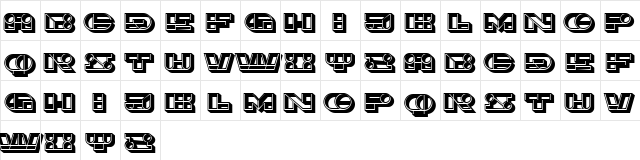
Imbecile 3D Regular
Design Context for Imbecile 3D Typeface
Imbecile 3D is a composed and adaptable typeface that performs quietly and consistently across a wide range of design contexts.